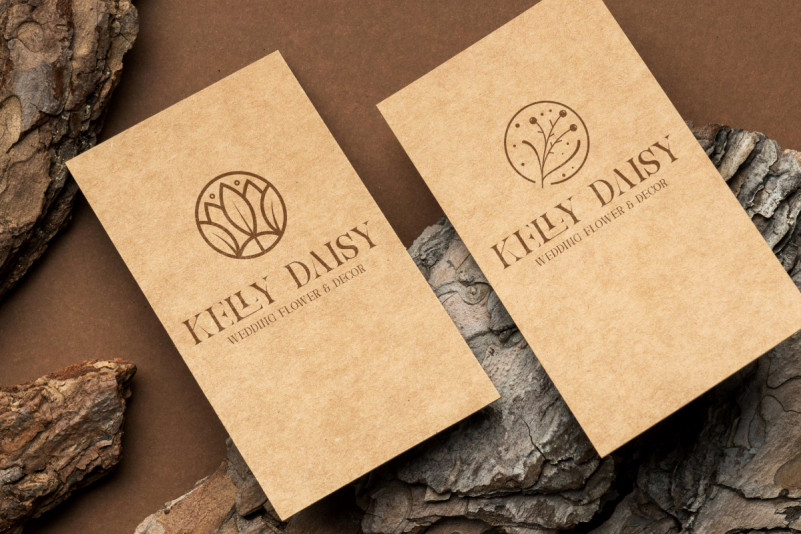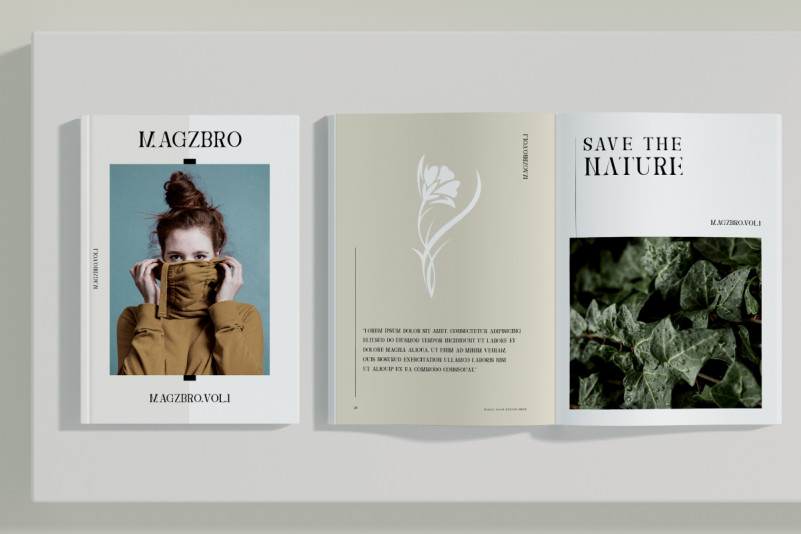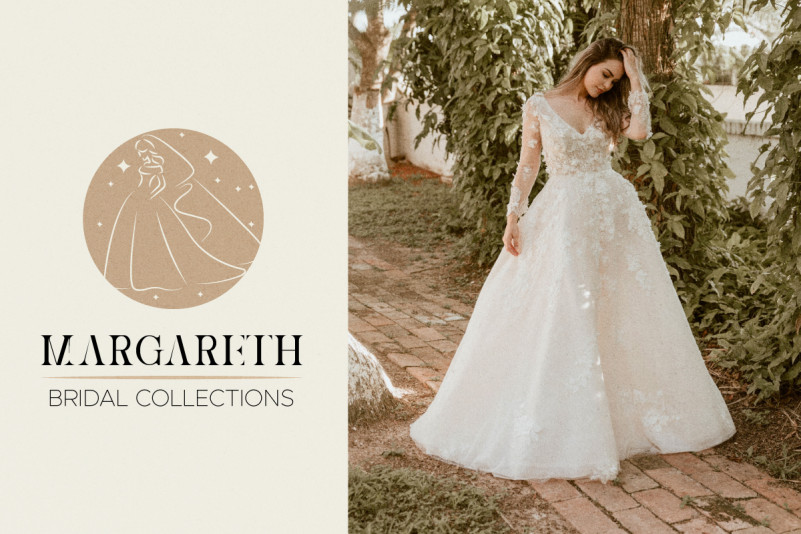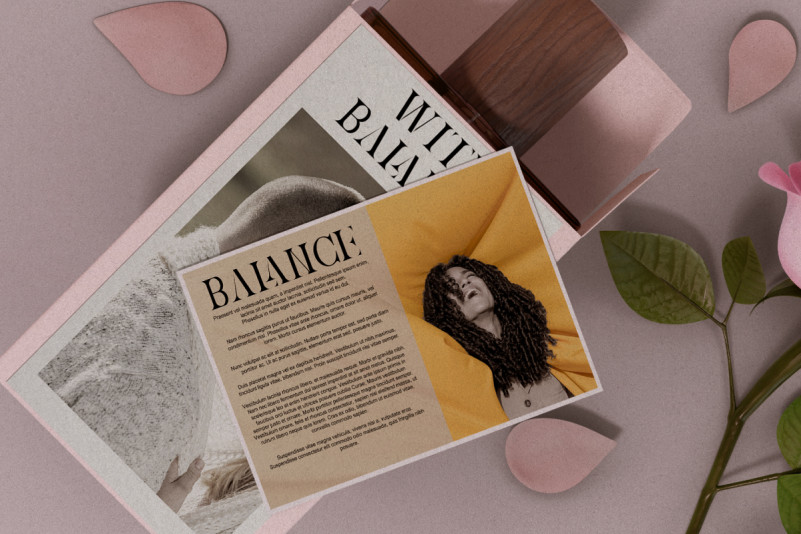
Zarla Font
Zarla Font is a minimalist display serif font family, designed by Rais Project. The font has minimal style that great for casual, Beauty, Wedding, fashion Magazine, Wedding, etc